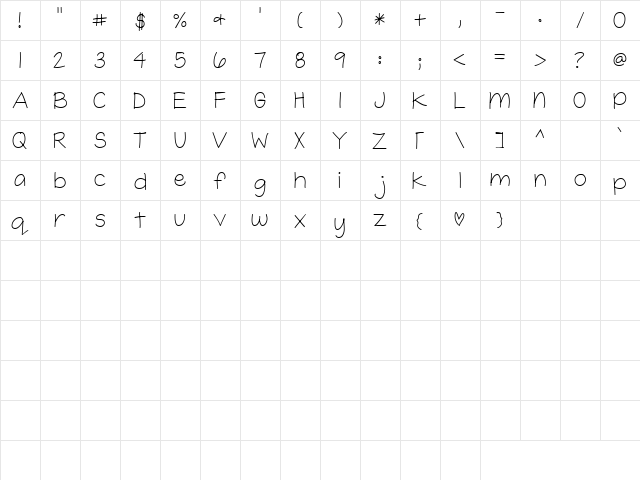
LD Fine Print 16 Regular
Design Context for LD Fine Print 16 Typeface
LD Fine Print 16 takes a measured approach to typography — its balanced proportions and neutral character make it a reliable workhorse for both digital and print work.